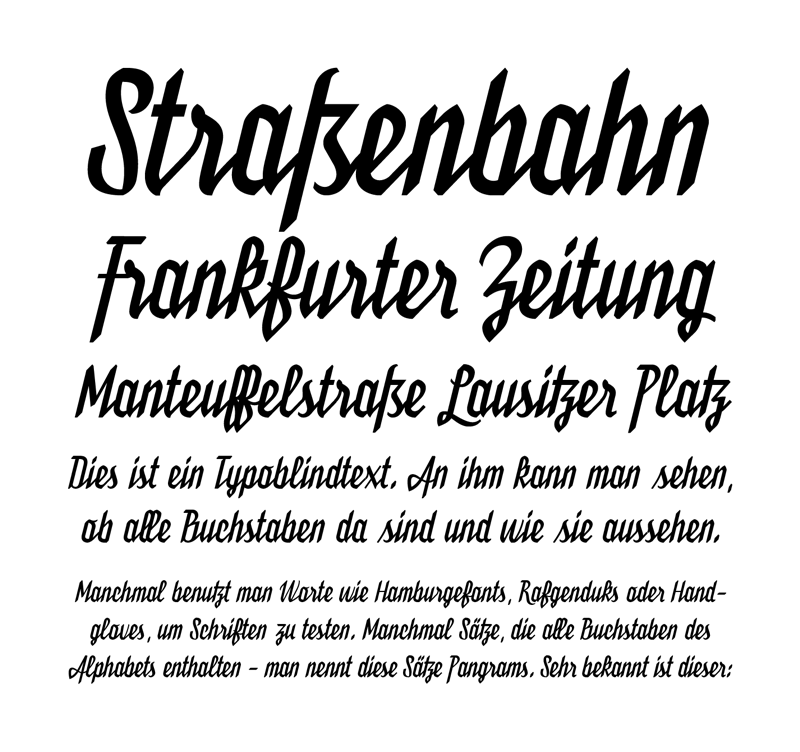
"BUKAREST" Retrospective handwriting font. www.vinzent.me/bukarest Full character set including: • A-Z a-z 0-9 • punctuation • diacritics • positional alternates • ligatures Free for personal & educational use. For commercial use please get in contact: mail@vinzent.me www.vinzent.me © Vinzent Britz 2017 |